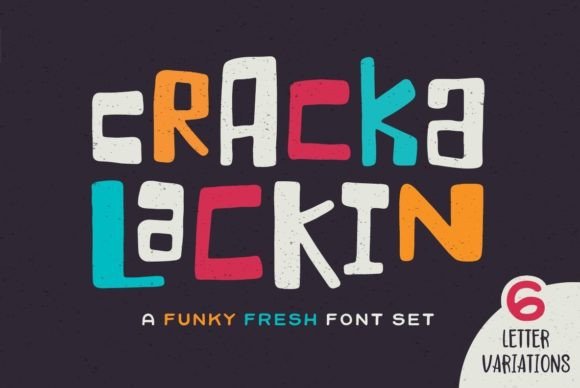
Step into the realm of visual enchantment with Crackalackin Font, the ultimate font set crafted to unleash your creativity. Dive into a world of design possibilities with this captivating display font, meticulously designed by Denise Chandler, a font maestro renowned for their artistic flair.
Crackalackin Font is more than just a font; it's an artistic playground where letters dance in harmonious disarray. Unleash your imagination and embrace the freedom to mix and match six variations of each letter, creating typographic masterpieces that reflect your unique style.
Crackalackin Font is a visual symphony, a delightful composition of curves and angles that effortlessly captures attention. Let your creativity soar as you explore the endless possibilities of this remarkable font set. Whether you're a seasoned designer or a typography enthusiast, Crackalackin Font is your passport to a world of limitless expression.